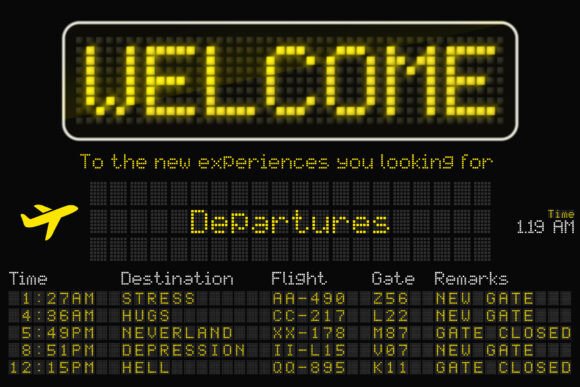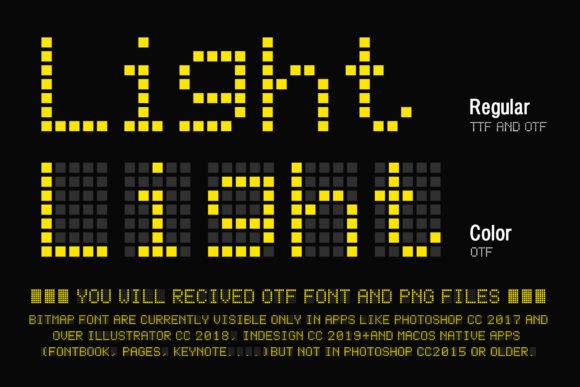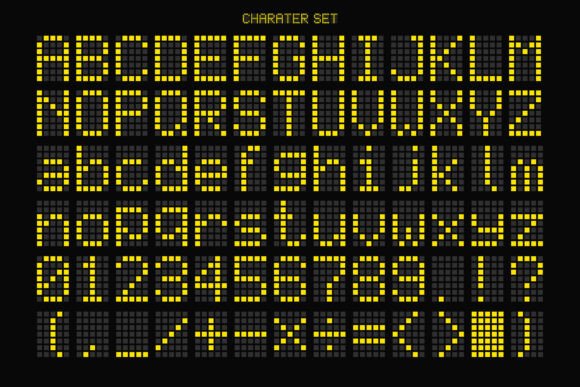
Introduction to Led Display Font
As a designer, you’ve likely found yourself stuck in a creative rut, searching for that one perfect font to elevate your project. Maybe it was a late-night brainstorming session, or a tight deadline looming, but you knew exactly what you needed – a unique, high-quality font that would give your design that extra oomph. For many of us, that moment of clarity came when we stumbled upon the Led Display Font.
This innovative font has been a game-changer for designers, offering a sleek, modern aesthetic that’s perfect for any creative project. With its transparent background and free download availability, it’s become a valuable resource for designers looking to add some edge to their designs. Whether you’re working on a logo, brochure, or social media graphics, the Led Display Font is sure to be an incredible asset to your design library.
So, what makes the Led Display Font so special? Read on to discover the secrets behind this high-quality design resource and how it can take your creative projects to the next level.
Key Features of Led Display Font
- High-quality digital font designed for use in creative projects, including electronic displays and digital signage.
- Transparent background allows for seamless integration with various display types, including LED screens and digital billboards.
- Designed to be highly legible, even at small sizes, making it ideal for use in digital signage and electronic displays.
- Supports a wide range of languages, making it a versatile design element for global creative projects.
Honest Review: Led Display Font
I recently had the chance to work with Led Display Font, and I must say it’s been a game-changer for my design projects. This font is perfect for creating eye-catching and modern designs.
Here are some things that work well: ✨
- High-quality design: The font is incredibly crisp and clean, making it perfect for digital displays.
- Transparent background: This feature allows for seamless integration with any design, making it a versatile resource.
However, there are some limitations to keep in mind: ⚠️
- Limited character set: While the font is perfect for digital displays, it’s not ideal for complex text-based designs.
- Lack of bold and italic options: These are essential for adding emphasis to certain text, but they’re not available in this font.
Overall, I’m impressed with Led Display Font. It’s a great addition to any design resource and has been a valuable asset for my creative projects. While it’s not perfect, its strengths far outweigh its limitations.
The Led Display Font is a versatile design resource that can be used in a variety of creative projects, including:
– Event signage and banners
– Advertising and marketing materials
– Social media graphics and posts
– Business presentations and reports
– Personal projects and hobbies
Is the Led Display Font a design resource suitable for high-contrast designs?
Yes, the Led Display Font is designed to be highly legible and versatile, making it an excellent choice for high-contrast designs. Its clear and simple design ensures that it remains readable even on low-resolution displays or in high-contrast environments, making it an ideal choice for creative projects requiring a clear and modern aesthetic.